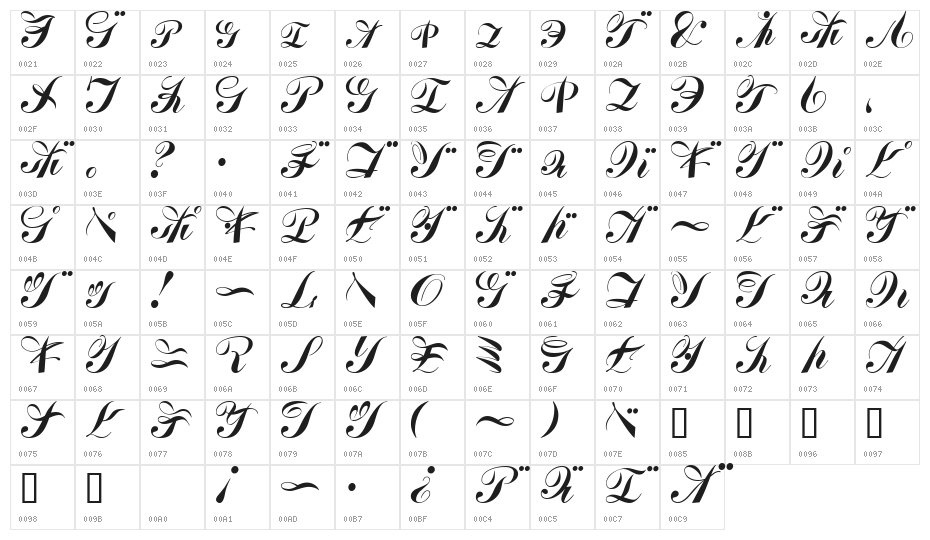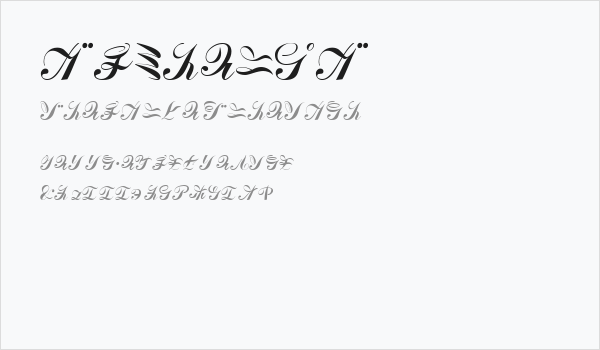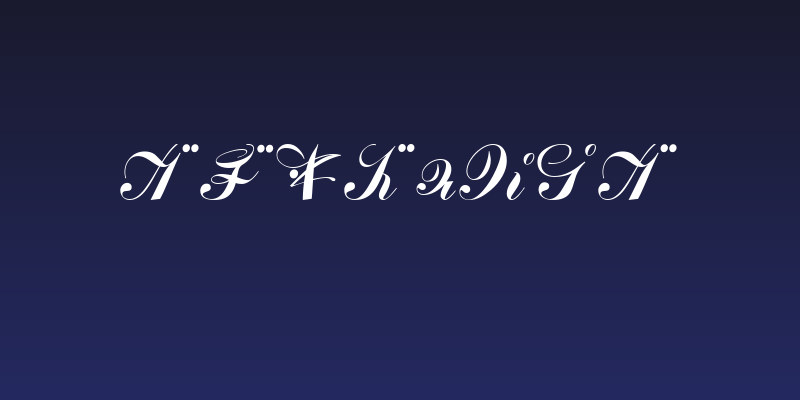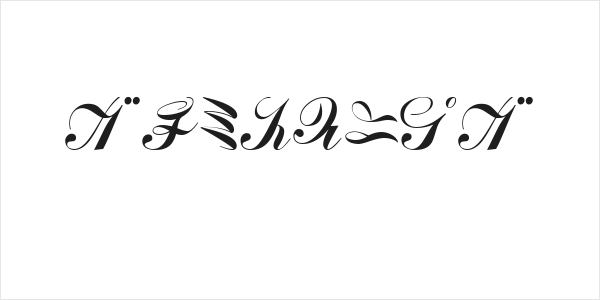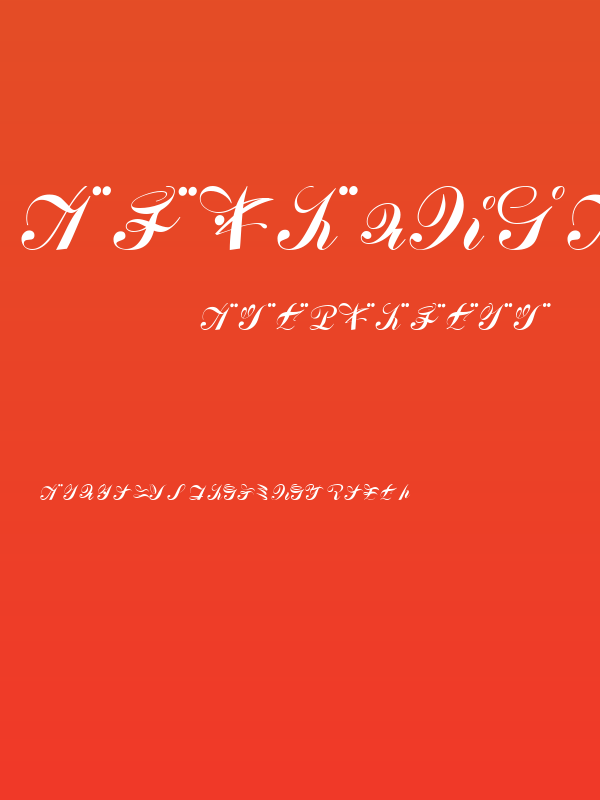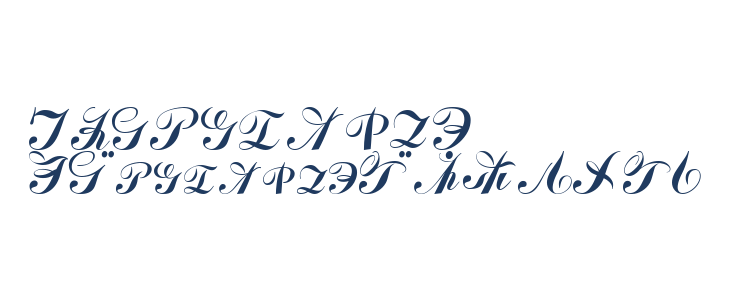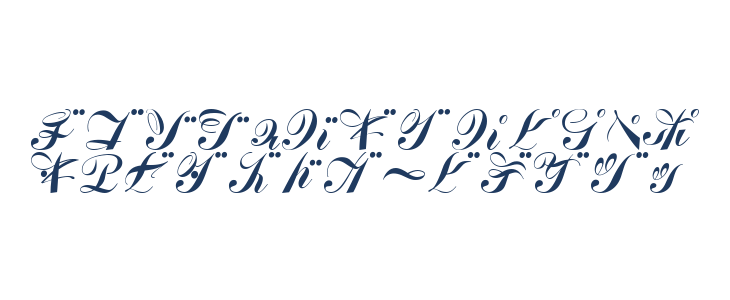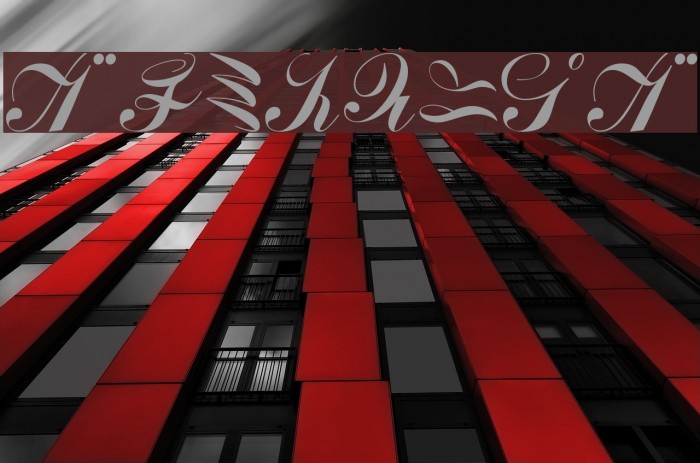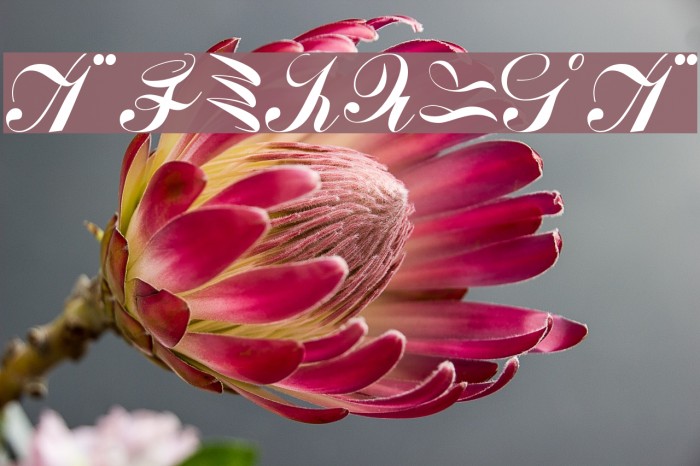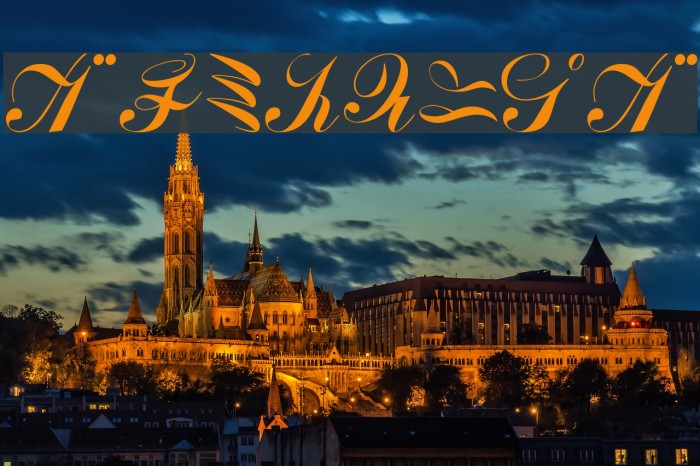
TanreiKT Font
TanreiKT Description
This font features an elegant and decorative script style with intricate swirls and flourishes. Each character is crafted with a high level of detail, showcasing a blend of thick and thin strokes that create a dynamic and sophisticated appearance. The uppercase letters are particularly ornate, with extended loops and curves that add a sense of movement and grace. The lowercase letters maintain the decorative theme, though they are slightly more subdued, allowing for readability while still retaining the font's artistic flair. The numbers and special characters are designed to match the overall aesthetic, ensuring a cohesive look across all text elements.
| Proposed Projects | Ideal for wedding invitations, luxury branding, high-end product packaging, and elegant event posters. |